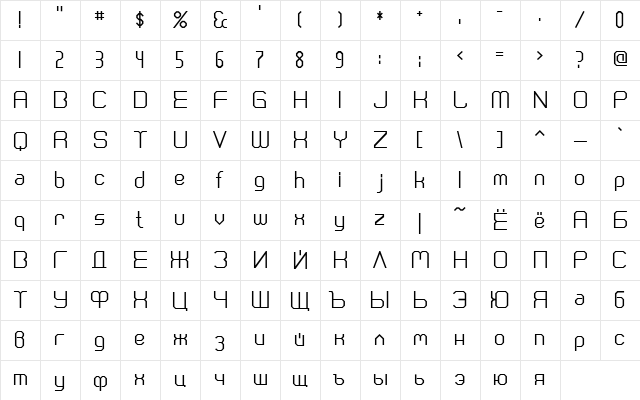
Cranberry Cyr Regular
| Designer | Ray Larabie - lat. / Dubina Nikolay - rus. |
Design Context for Cranberry Cyr Typeface
Cranberry Cyr offers clean, dependable letterforms without strong stylistic allegiance, making it a practical choice for designers who need flexibility.